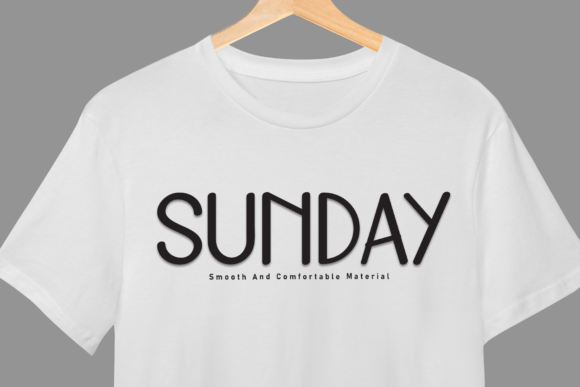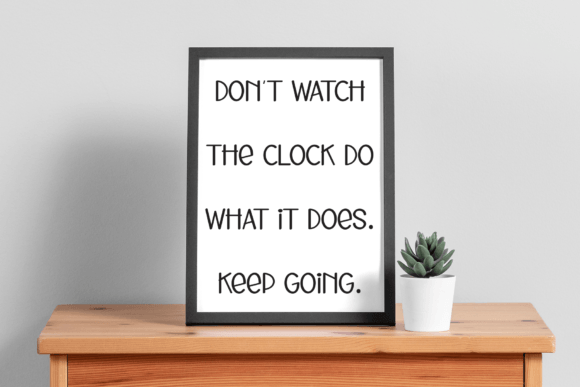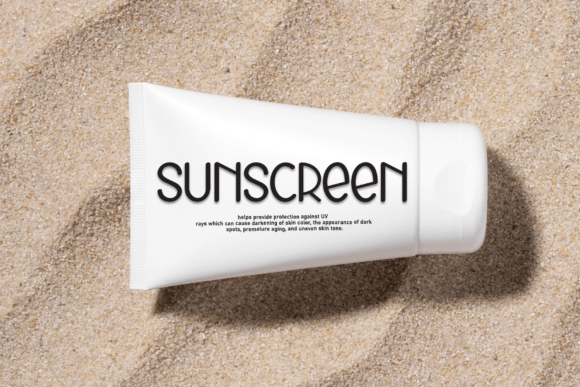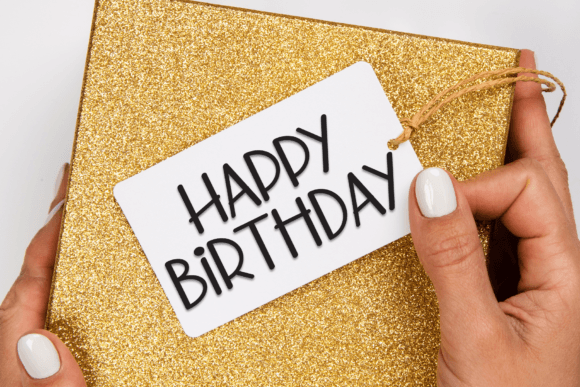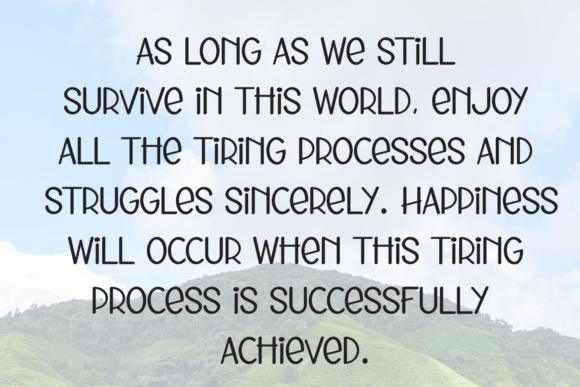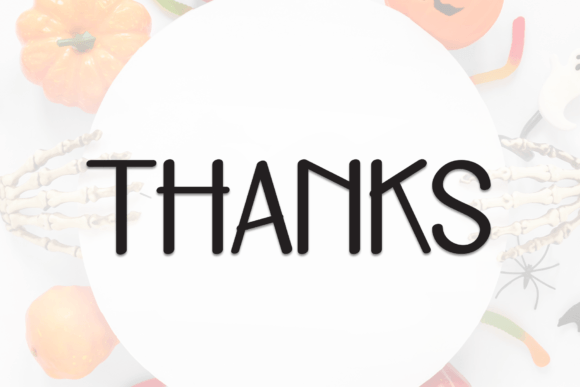
Happy Halloween Font: Add a Touch of Whimsy to Your Designs
As the spookiest time of the year approaches, designers and crafters are on the lookout for the perfect font to add a dash of delight to their Halloween-themed projects. Look no further than the Happy Halloween Font, a charming and whimsically handwritten display font that’s sure to evoke a wave of joy in your audience.
The Perfect Blend of Style and Warmth
With its endearing and playful essence, the Happy Halloween Font is perfect for adding a sprightly touch to a variety of design projects, from wedding invites and greeting cards to Halloween-themed decorations and party invitations. This loveable font effortlessly combines style and warmth, making it an excellent choice for designers and crafters who want to create eye-catching and engaging designs.
Whimsical Handwritten Appeal
The Happy Halloween Font boasts a whimsical handwritten appeal that’s sure to capture the hearts of your audience. Its inviting and playful nature makes it perfect for designs that require a personal touch, such as:
- Wedding invitations: Add a touch of romance and whimsy to your wedding invites with this charming font.
- Greeting cards: Create eye-catching and engaging greeting cards for any occasion with the Happy Halloween Font.
- Halloween decorations: Use this font to create spooky yet fun Halloween decorations, such as party invitations, banners, and signs.
- Party invitations: Add a dash of delight to your party invitations with this playful and whimsical font.
Key Features of the Happy Halloween Font
The Happy Halloween Font comes with a range of features that make it an excellent choice for designers and crafters, including:
- Whimsical handwritten design: The font boasts a unique and playful handwritten design that’s sure to capture the hearts of your audience.
- Endearing and playful essence: The font has an endearing and playful nature that makes it perfect for designs that require a personal touch.
- Perfect for a variety of design projects: The Happy Halloween Font is versatile and can be used for a range of design projects, from wedding invites and greeting cards to Halloween decorations and party invitations.
Tips for Using the Happy Halloween Font
Here are some tips for using the Happy Halloween Font in your designs:
- Pair it with other fonts: The Happy Halloween Font pairs well with other fonts, such as serif and sans-serif fonts. Experiment with different font combinations to create unique and eye-catching designs.
- Use it for headings: The font is perfect for headings and titles, adding a touch of whimsy and playfulness to your designs.
- Add a personal touch: Use the Happy Halloween Font to add a personal touch to your designs, such as in invitations, greeting cards, and party decorations.
- Experiment with colors: The font looks great in a range of colors, from bright and bold to pastel and muted. Experiment with different colors to find the perfect look for your design.